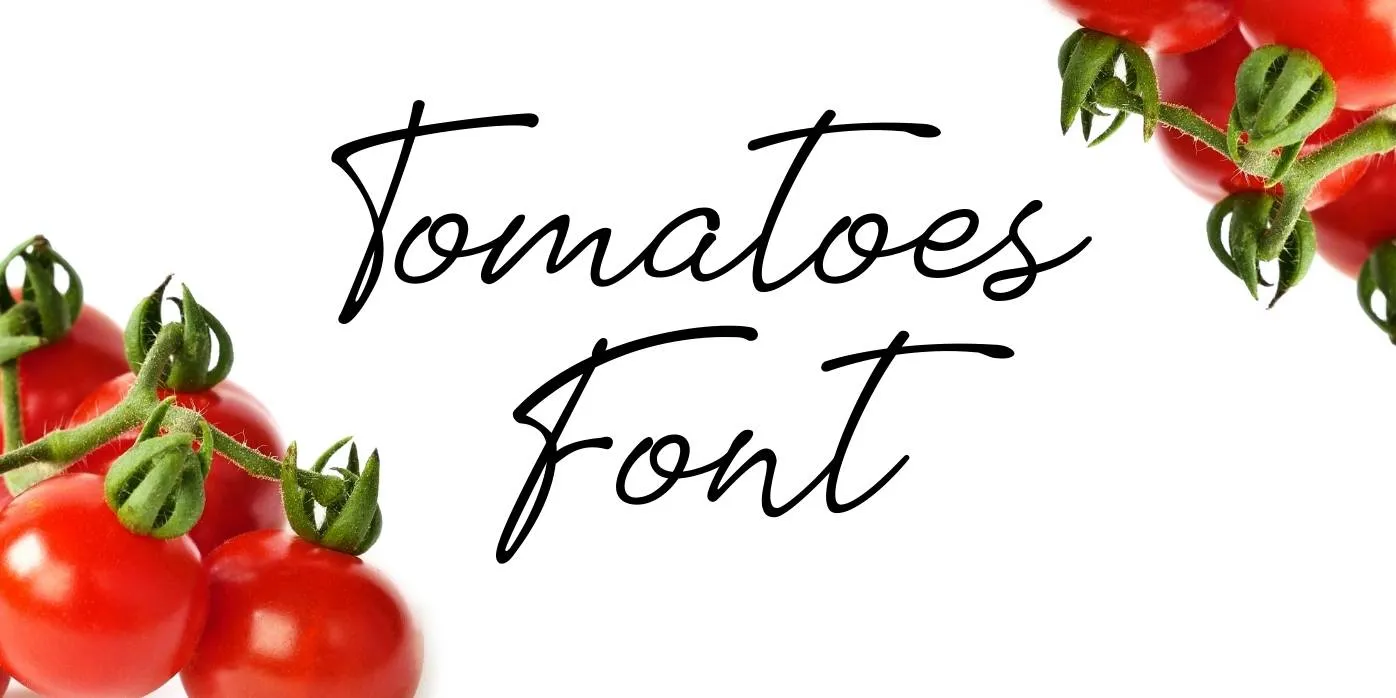
Tomatoes Font
Tomatoes font was developed by very famous designer Billy Argel in the year 2016. This cute font belongs to the Handwritten typeface. This marvelous font is very perfect for Projects that need a personal and natural feel. This attractive font includes OpenType features with Stylistic Alternates, Contextual Ligatures, and Discretionary Ligatures.
This unique font is perfect for a wide range of creative projects. This classy font is the perfect font for various designs when you need to add a touch of personality to your project. This typeface has keen and classic features that make it awesome.